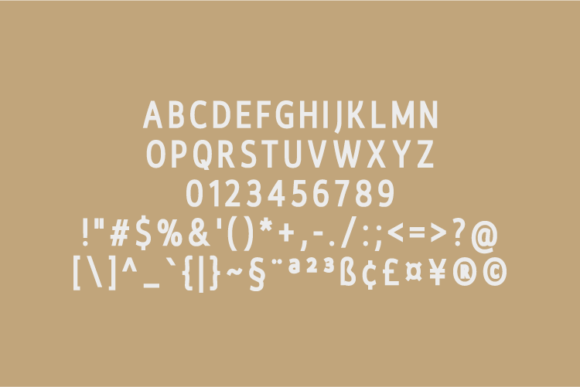
Introduction to Modeln Font
Do you remember the moment when you first saw a beautiful design that stopped you in your tracks? For many of us, it’s the perfect combination of creativity, style, and personality that makes a design truly special. Whether it’s a stunning Instagram post or a unique DIY project, the right font can elevate your work and make it stand out from the crowd.
That’s where Modeln Font comes in – a modern and casual sans serif font that exudes an incredibly friendly feel. This high-quality design resource is perfect for designers looking to add a touch of personality to their creative projects. With Modeln Font, you can easily achieve a transparent background effect and download it for free, making it a valuable asset for any design project.
Whether you’re a seasoned designer or just starting out, Modeln Font is a must-have in your design toolkit. Its versatility and ease of use make it an ideal choice for a wide range of creative projects, from social media graphics to calligraphy scripts.
Key Features of Modeln Font
- High-quality vector font with a creative design suitable for various projects, including logos, graphics, and branding materials.
- Transparent background option, making it easy to place the font over any background or image without compromising its quality.
- Designed as a design resource for creative projects, Modeln Font is ideal for use in graphic design, digital art, and print materials.
- Unique characteristics include a modern and sleek aesthetic, making it perfect for trendy and innovative projects.
- Perfect for designers and artists looking for a high-quality, free design resource to elevate their creative project.
Honest Review: Modeln Font
As a designer, I’m always on the lookout for high-quality design resources to elevate my creative projects. Modeln Font is one such resource that caught my attention, and I’m excited to share my honest review.
- ✨ Modeln Font offers a wide range of stylish and modern fonts that can add a touch of sophistication to any design project.
- ✨ The transparent background feature allows for seamless integration with any design element, giving designers more flexibility and creative control.
- ⚠️ The font selection may not be as extensive as some other design resources, which could be a drawback for designers who are looking for a specific style or font.
- ⚠️ Some of the fonts may not be optimized for certain font sizes or resolutions, which could affect their overall quality.
Overall, I’m impressed with Modeln Font’s high-quality design and versatility. While it may not be perfect, it’s a great resource for designers who want to add a touch of creativity to their projects without breaking the bank.
Tips for Getting the Most Out of Modeln Font
For optimal results, use Modeln Font on a transparent background to create a clean and modern design. Experiment with different font sizes and styles to add visual interest to your project.
Modeln Font is commonly used in design projects that require a high-quality, creative font. It’s perfect for logos, graphics, and other visual elements where a unique and stylish font is needed.
Yes, Modeln Font has a transparent background, making it easy to use in design projects where a clear and unobtrusive font is required. This feature is especially useful for designers working on creative projects that require a high level of visual subtlety.